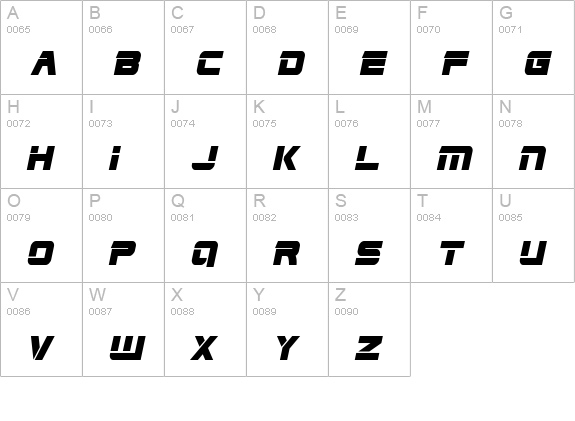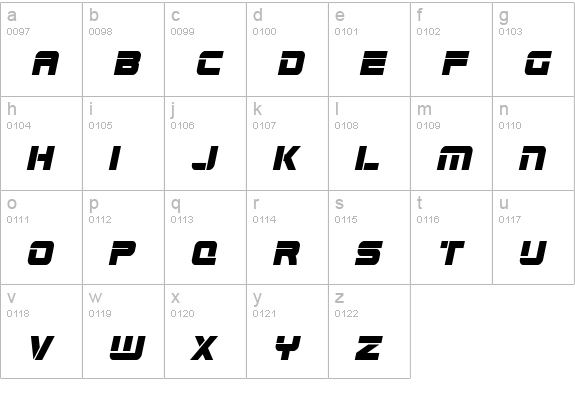
Edge Racer Font Details
Edge Racer font is a sleek and dynamic typeface that perfectly captures the essence of speed and excitement. Its sharp edges and bold strokes make it an ideal choice for projects that require a modern and energetic feel. Whether you're designing a racing poster, a sports logo, or a high-octane website, Edge Racer font will add a touch of adrenaline to your work.